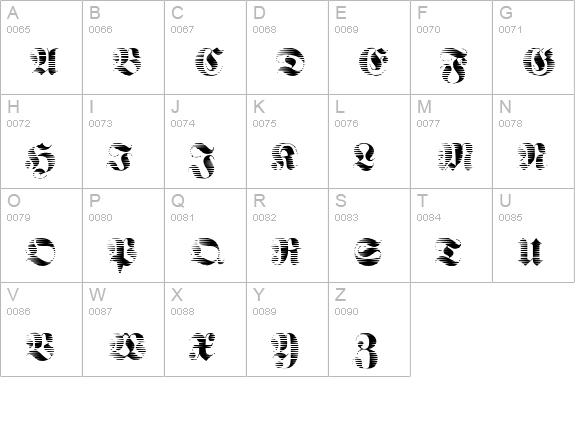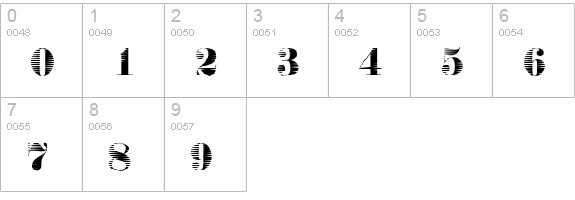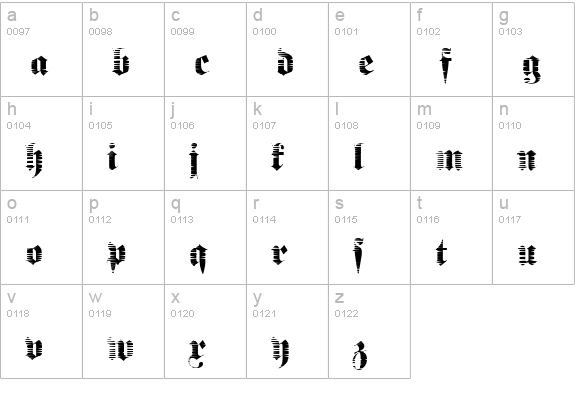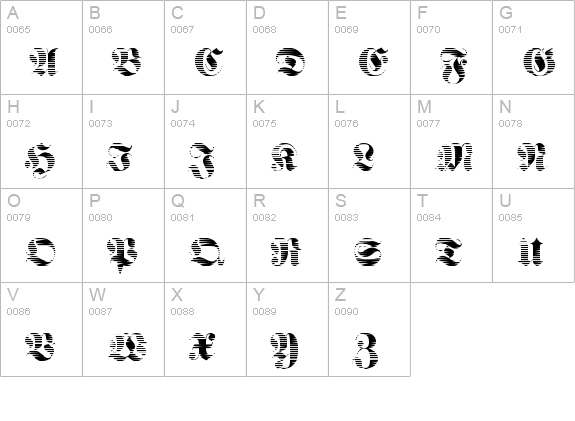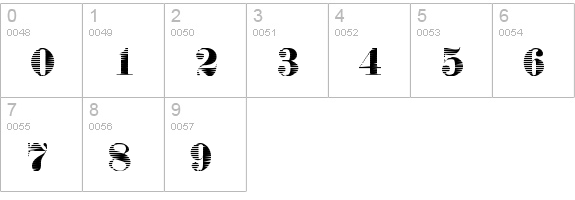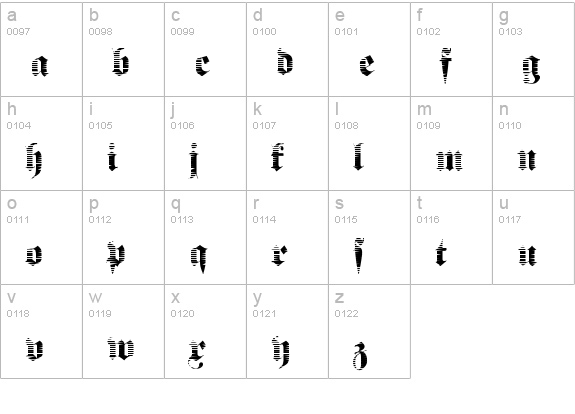
FrakturSawmill-Regular Font Details
FrakturSawmill-Regular is the standard, neutral variant in the FrakturSawmill typeface family \xE2\x80\x94 well suited to general body text, paragraphs, and standard typographic work.
FrakturSawmill-Regular is a distinctive and bold font that exudes a sense of tradition and craftsmanship. With its sharp, angular letterforms and intricate details, this font is perfect for creating eye-catching headlines, posters, and logos. The strong, vintage-inspired design of FrakturSawmill-Regular makes it ideal for projects that require a touch of old-world charm combined with a modern flair. Best of all, FrakturSawmill-Regular is available for free download at FontsMarket.com. Whether you're a designer looking to add a unique touch to your work or a hobbyist wanting to experiment with different fonts, FrakturSawmill-Regular is a versatile and stylish choice that won't cost you a penny. Download it today and let your creativity flow with this stunning and freely accessible font.